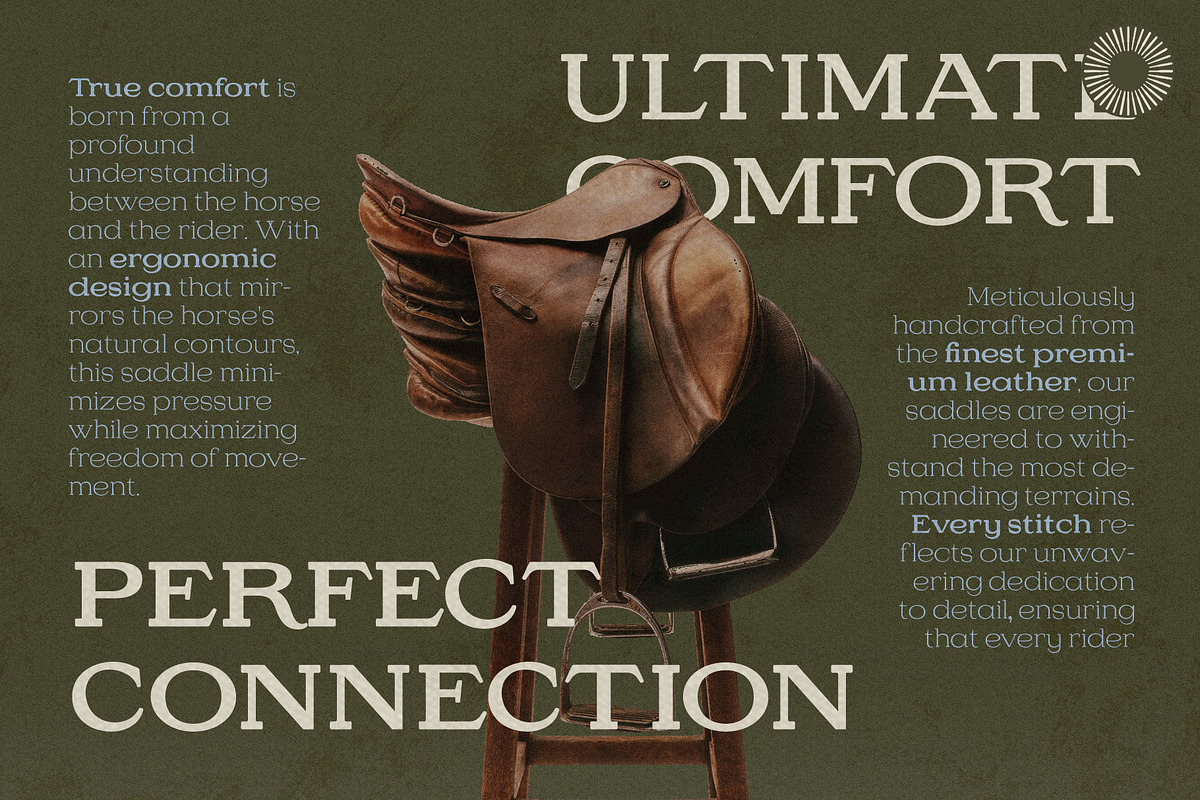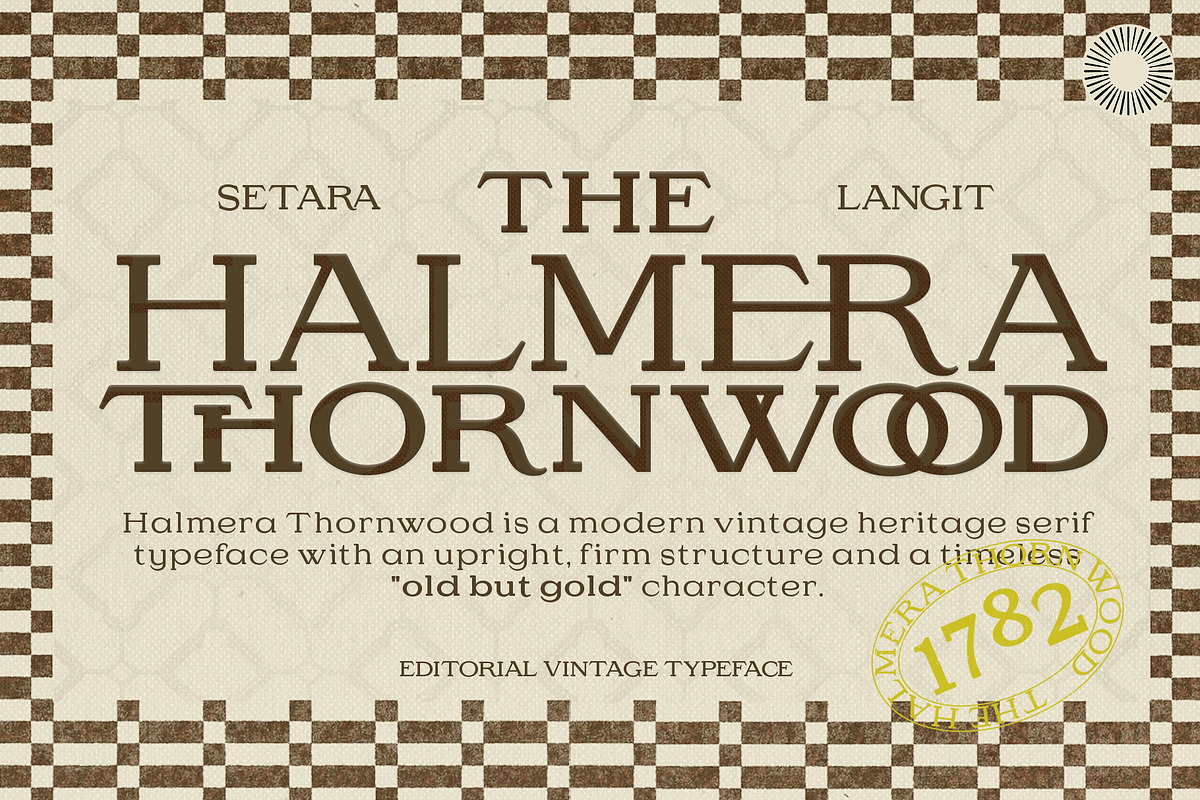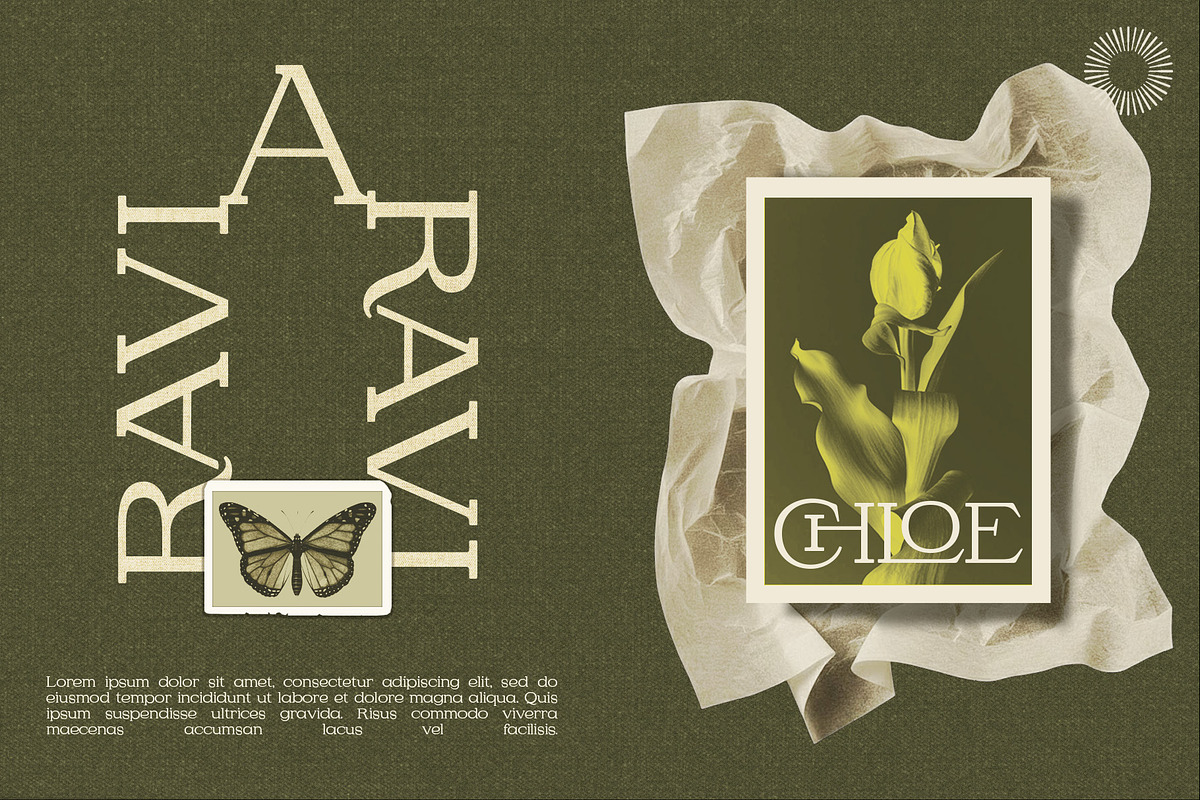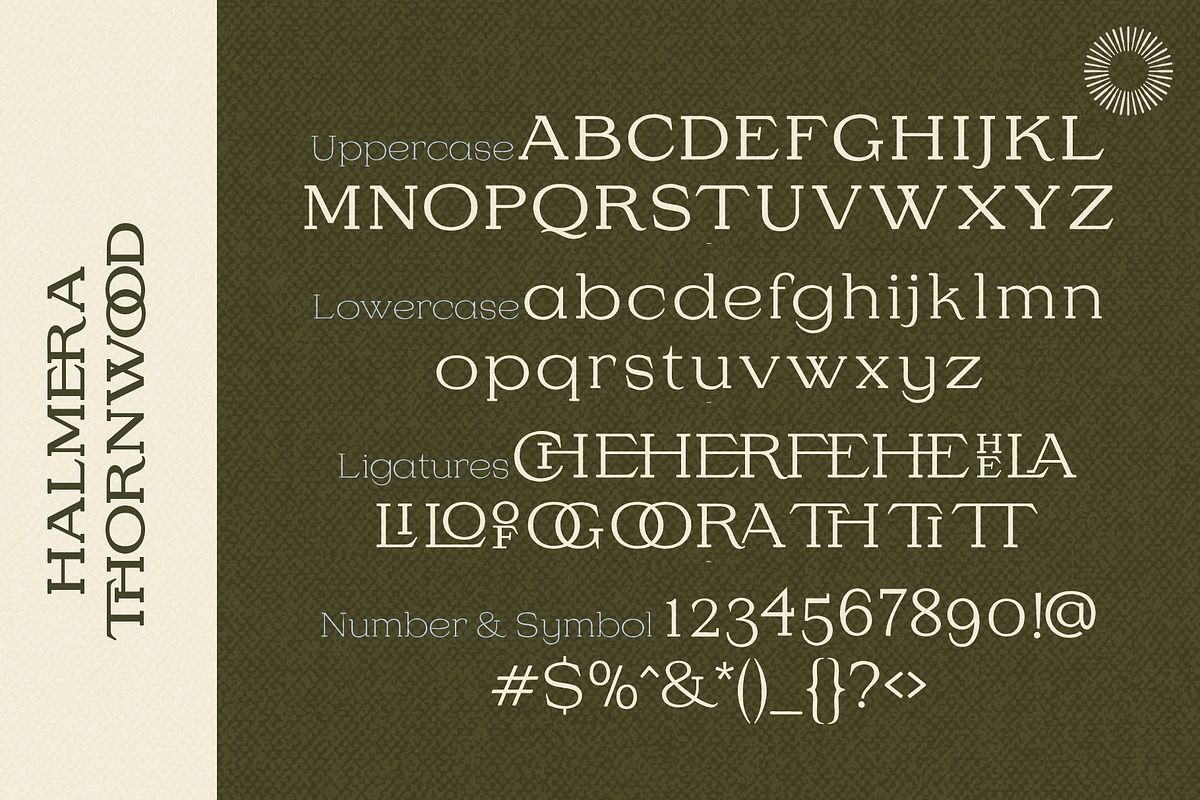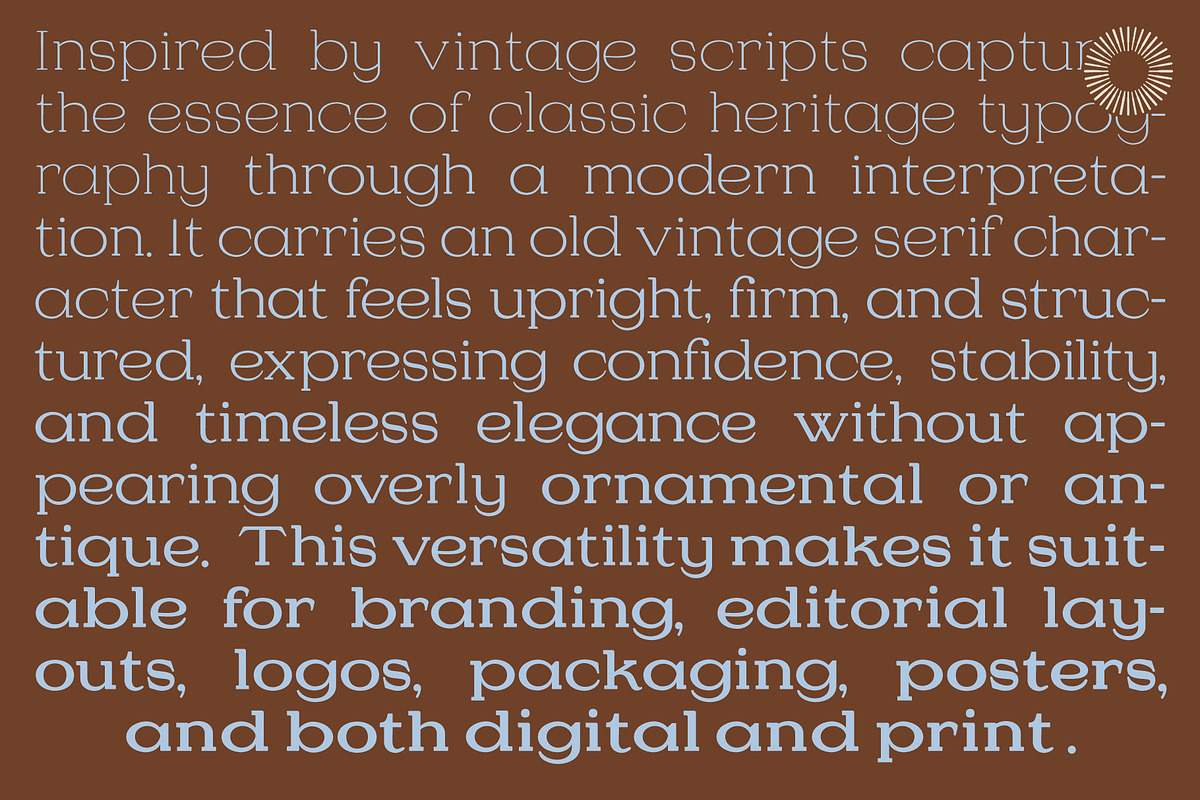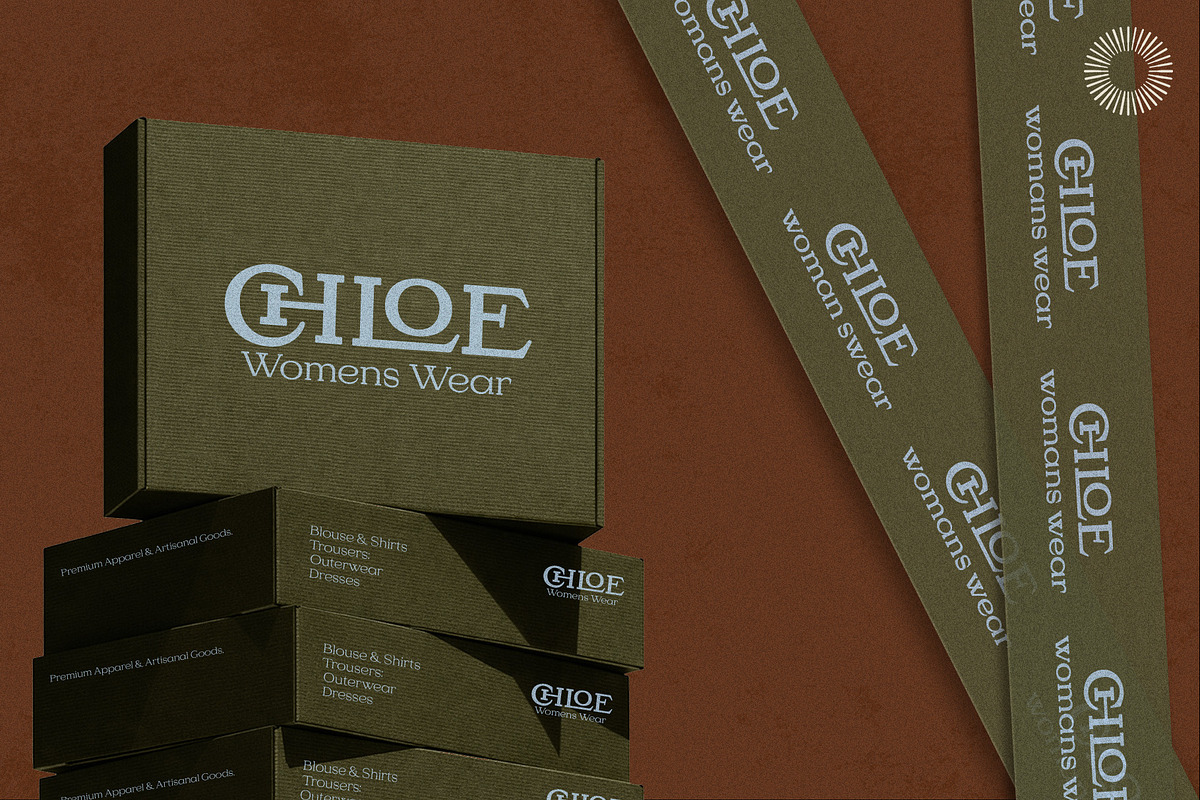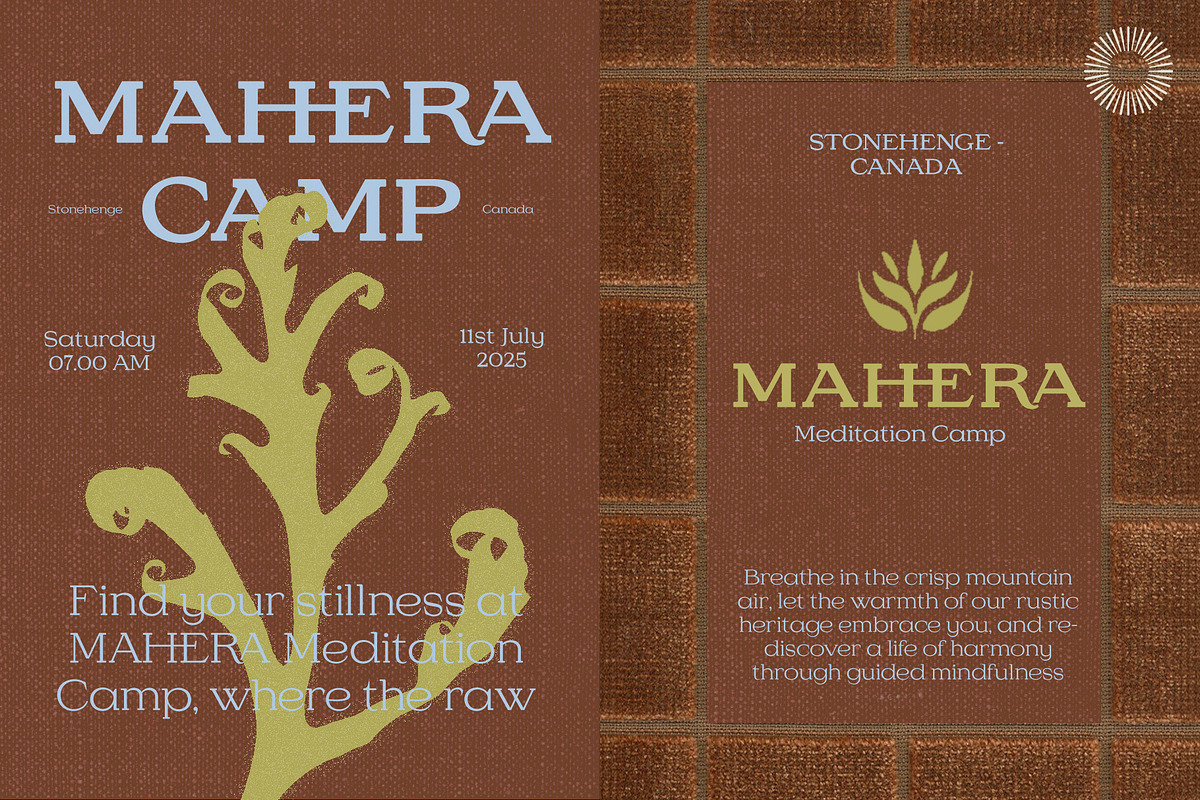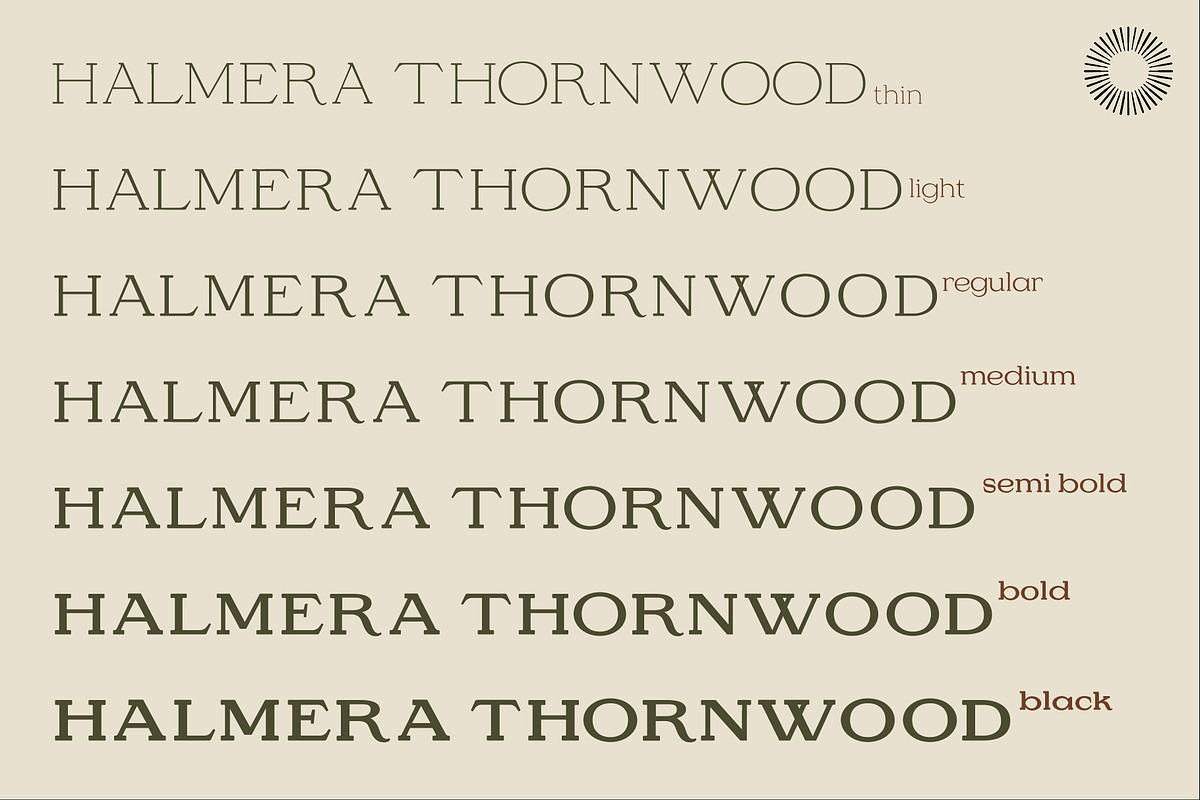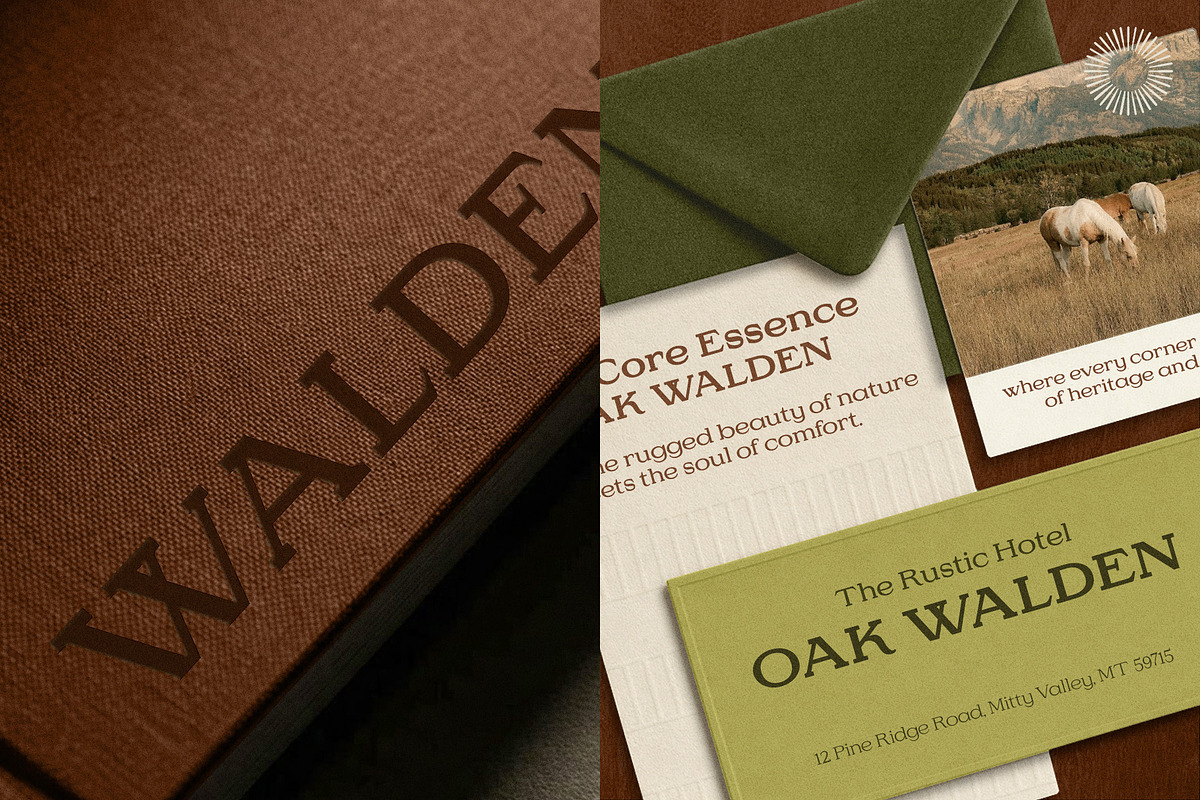
Halmera Thornwood- Serif Font Family
Halmera Thornwood is a modern vintage heritage serif typeface with a strong, upright structure and timeless editorial character. Inspired by classic print typography and old-world signage, it carries an “old but gold” presence refined, firm, and quietly powerful. The letterforms are tall, balanced, and confident, with solid serifs and clean proportions that make it highly readable while still feeling distinctive. Halter Thornwood blends tradition and modern clarity, making it versatile for both branding and editorial use.
- Numerals & punctuation
- Multilingual support: Basic Latin
- Elegant ligatures
- Clean, well-spaced kerning
- Strong upright serif structure
Best For
- Editorial layouts
- Vintage branding
- Packaging design
- Logo design
- Book covers
- Heritage-style branding
- Posters & signage
- Coffee shops, barbershops, craft brands
Halmera Thornwood is designed for brands and designers who want typography that feels established, grounded, and enduring. not trendy, but timeless.